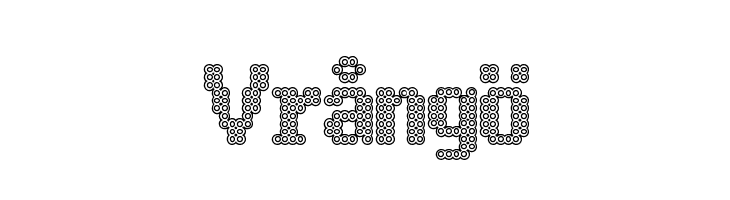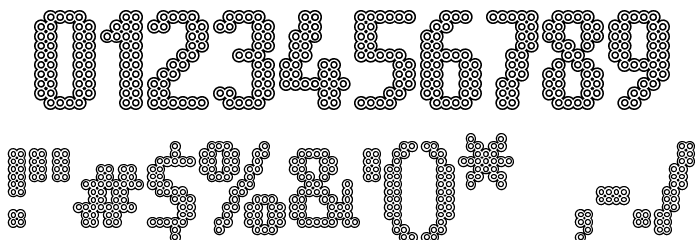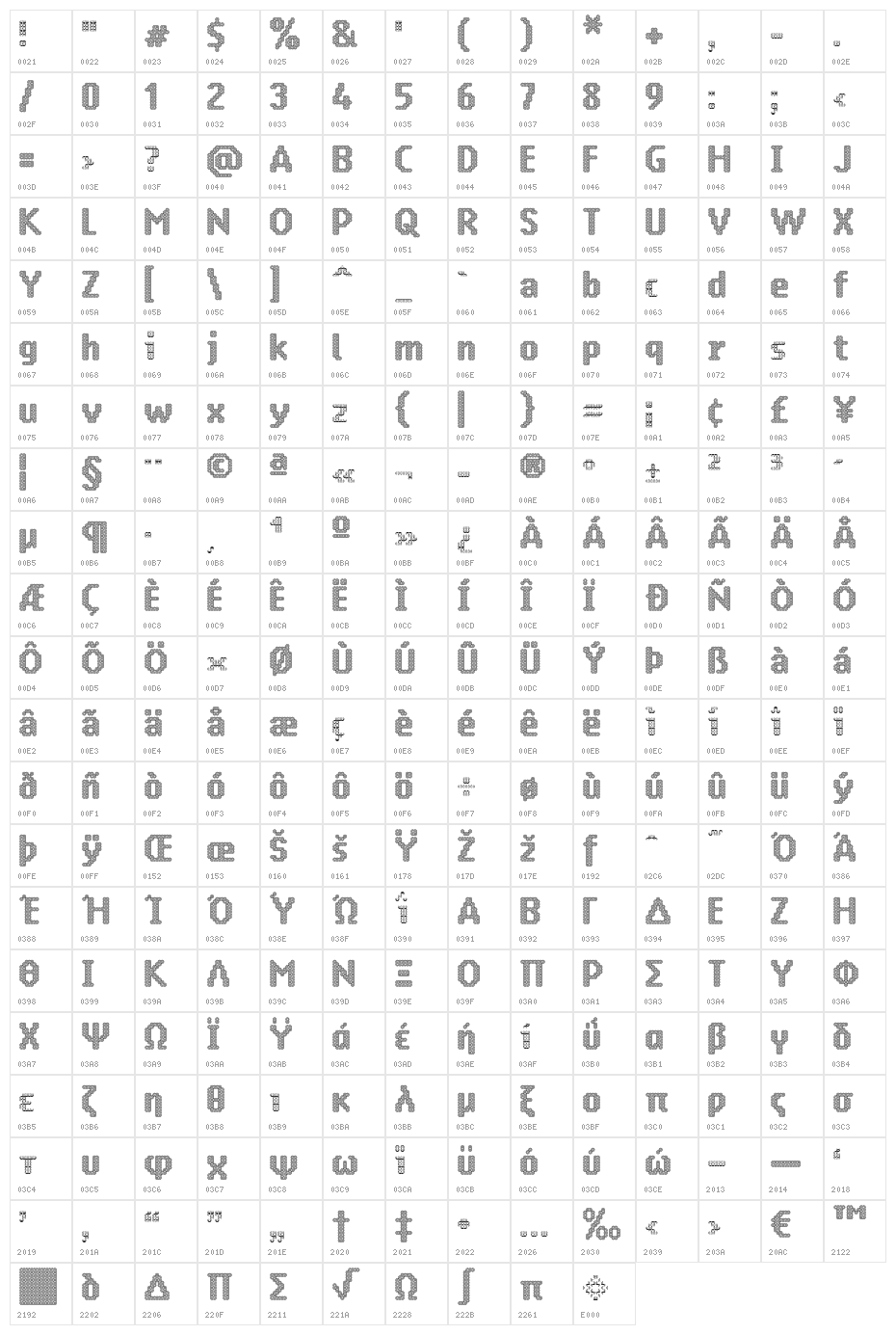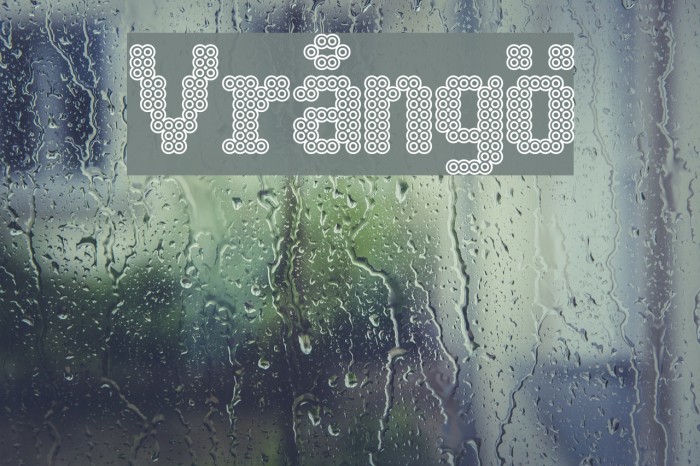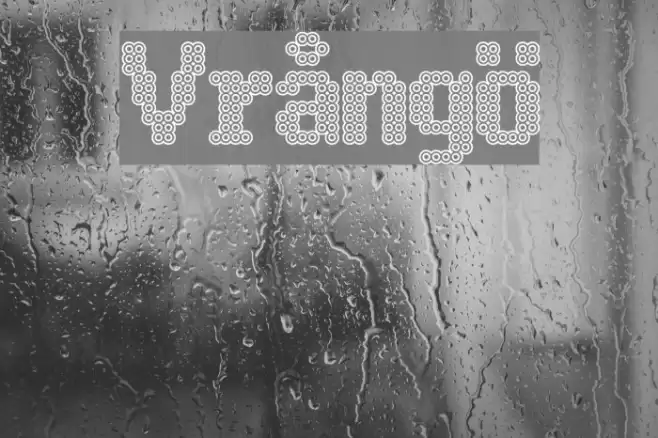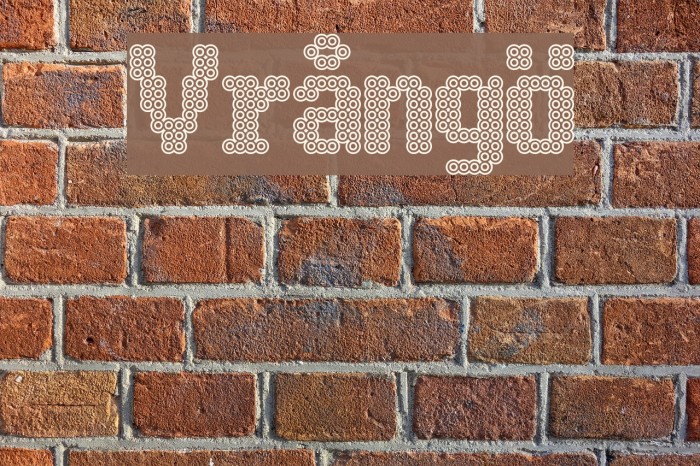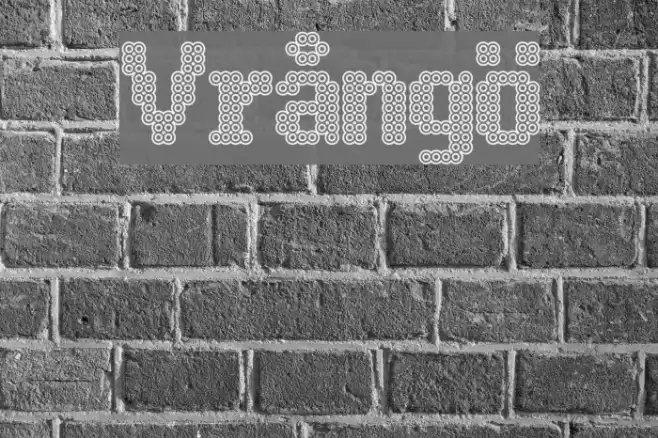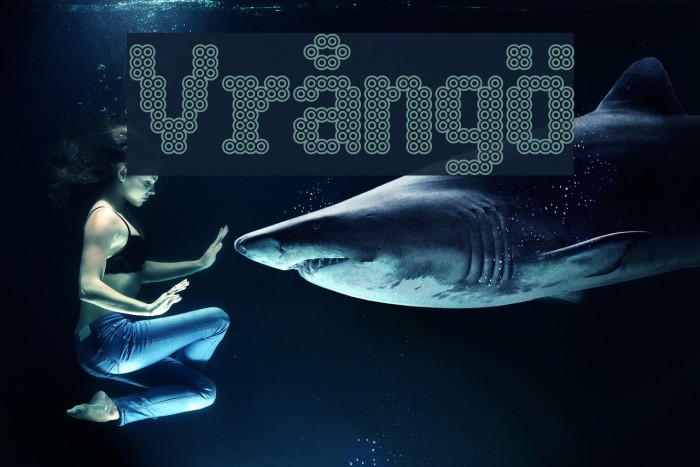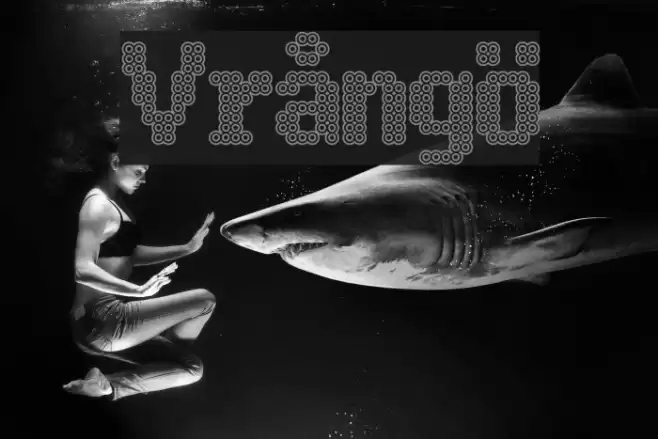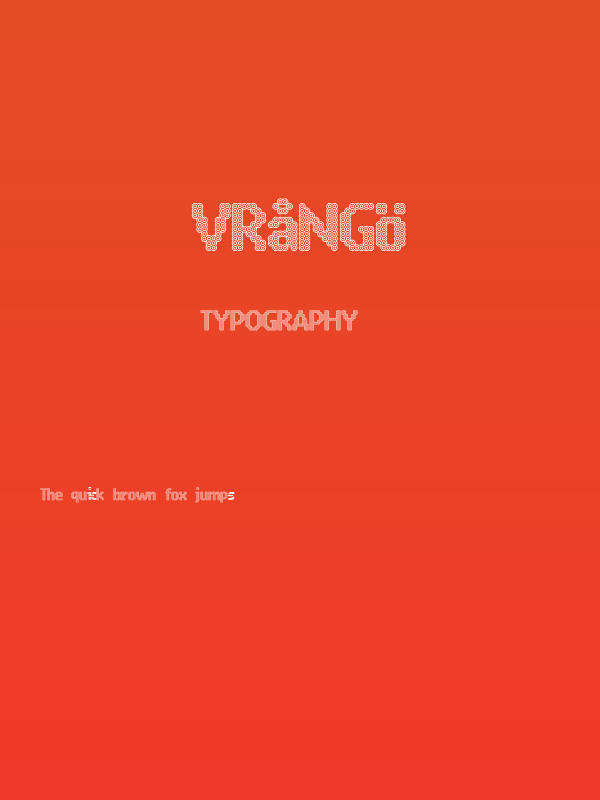
Vrångö Font
Vrångö Description
This font features a unique and playful design, characterized by its circular, bubble-like elements that form each letter and number. The characters are composed of small, interconnected circles, giving it a textured and three-dimensional appearance. This design choice creates a sense of depth and whimsy, making it stand out as a decorative typeface. The font maintains a consistent structure across uppercase, lowercase, numerals, and special characters, ensuring readability while retaining its distinctive style. Its bold and rounded forms make it suitable for eye-catching displays and creative projects.
| Proposed Projects | Ideal for children's book covers, playful branding, party invitations, and creative posters. |